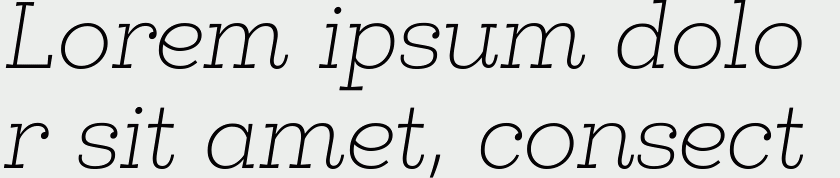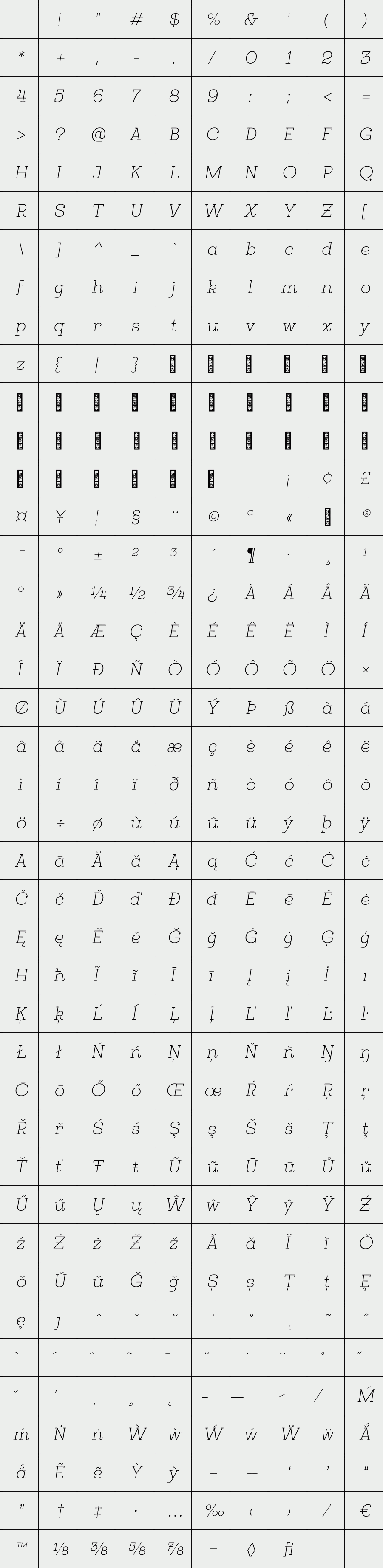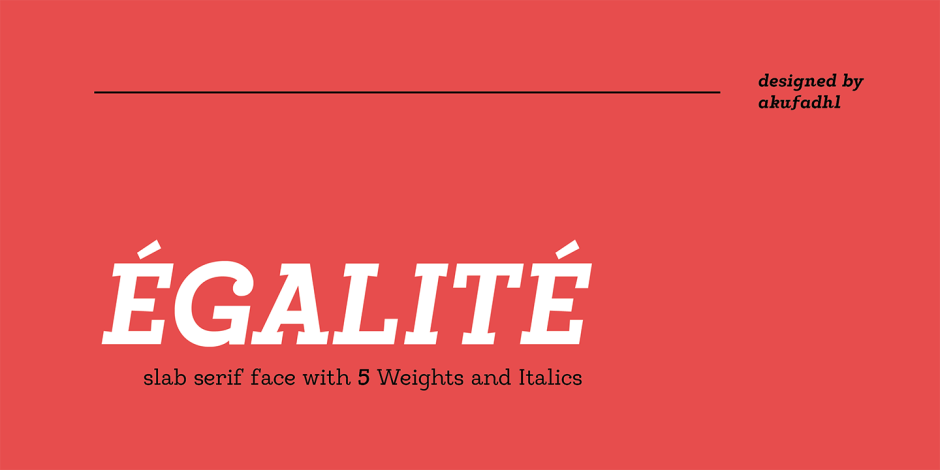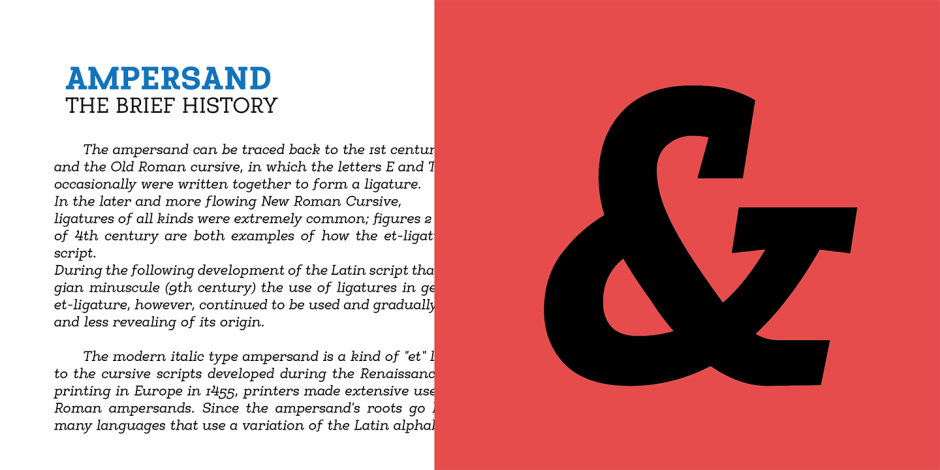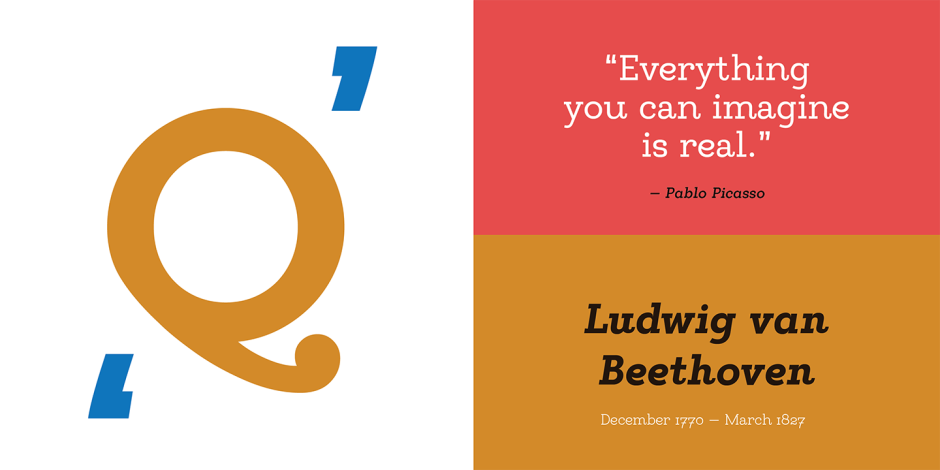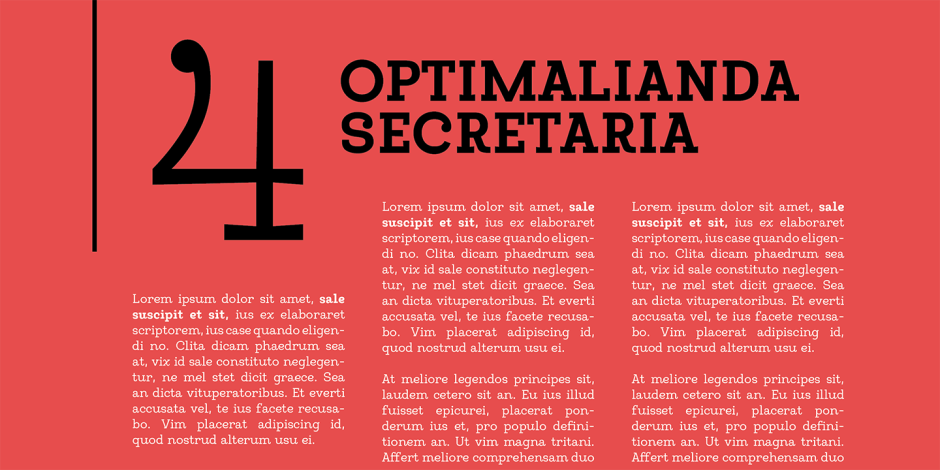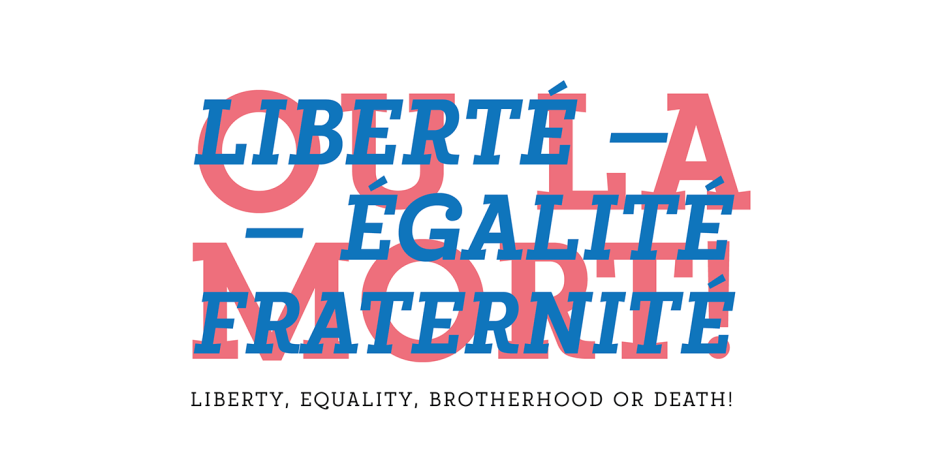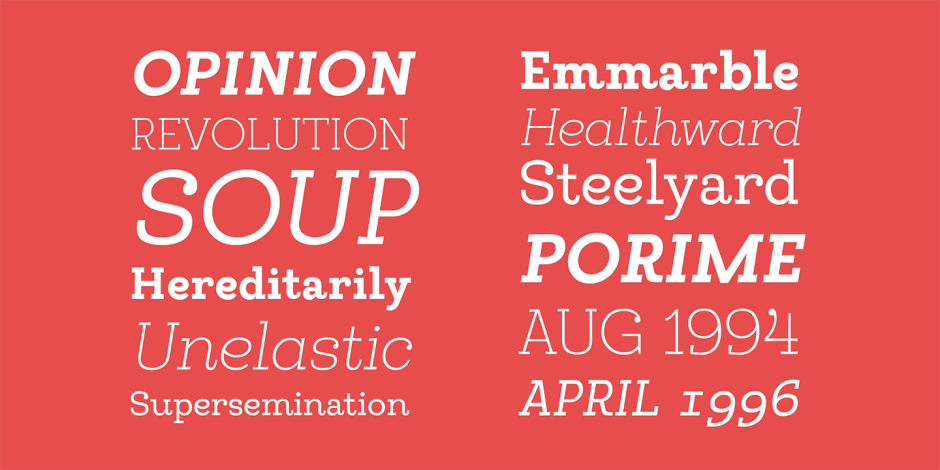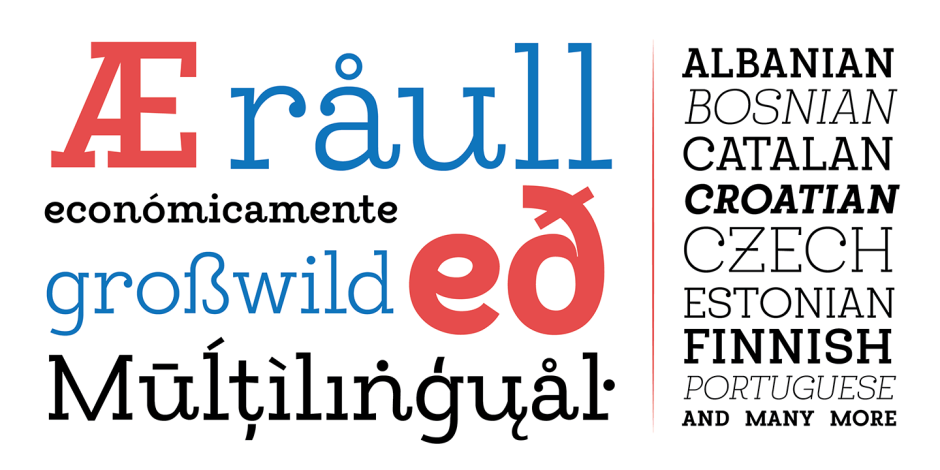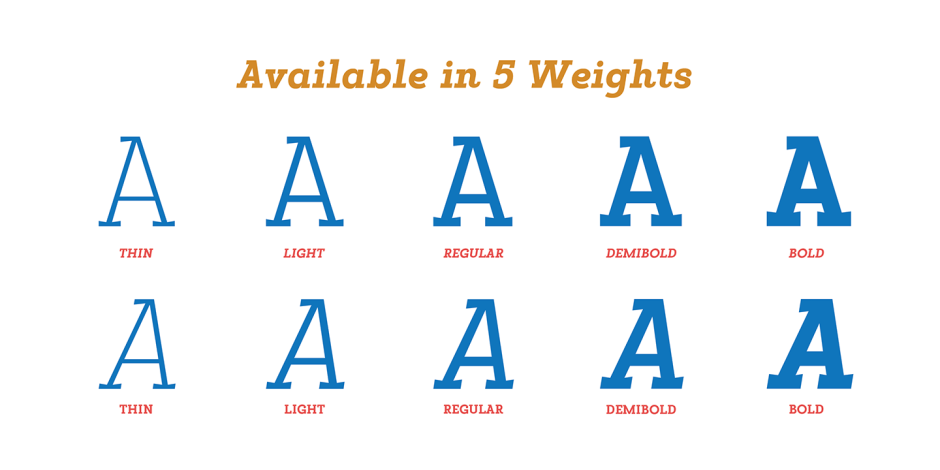
Egalite
/ Egalite Thin Italic
Egalite is a Slab-Serif face with a combination between sharp and Rounded shape.
The sharp serif, and rounded terminals give a fun yet serious feel. It also have a low contrast shape to give more strong feel and personality. Come with a bit low x-Height and a big counter to improve legibility in a Small display and print. also have an ink traps to improve the Printing result on paper.
Designed to be used as a Display font.
The sharp serif, and rounded terminals give a fun yet serious feel. It also have a low contrast shape to give more strong feel and personality. Come with a bit low x-Height and a big counter to improve legibility in a Small display and print. also have an ink traps to improve the Printing result on paper.
Designed to be used as a Display font.
Designer: Fadhl Waliy Ul Haqq